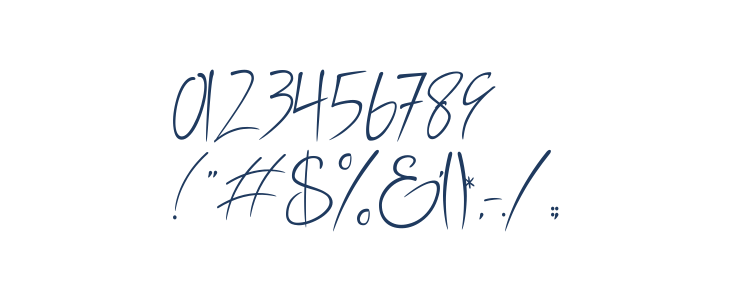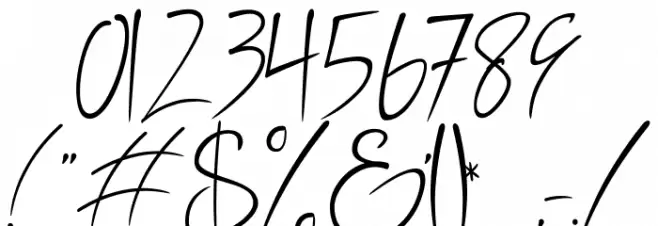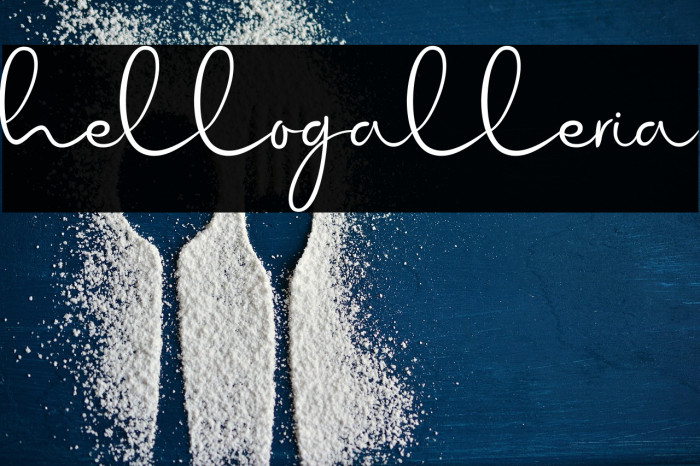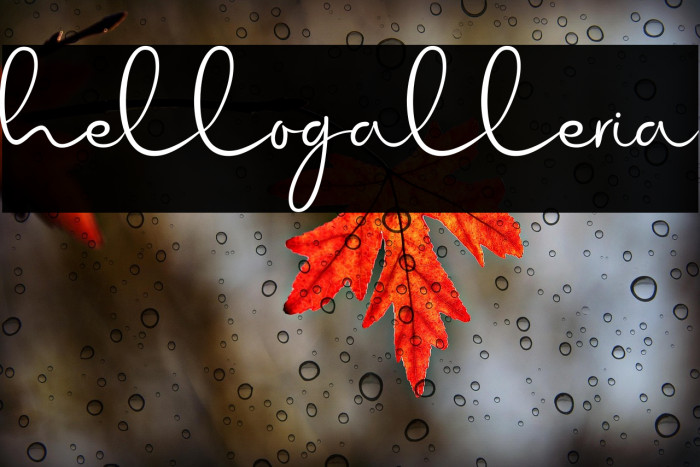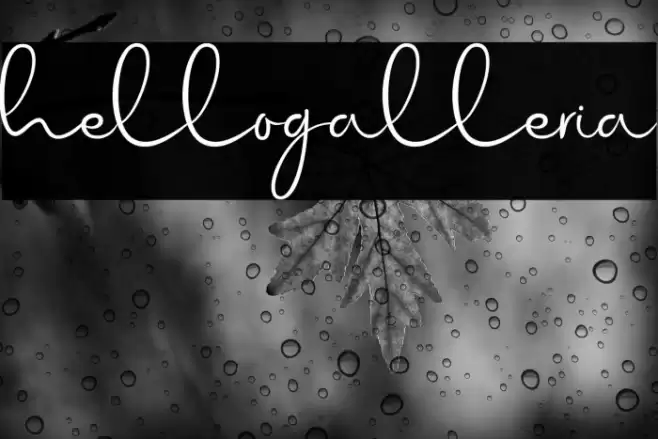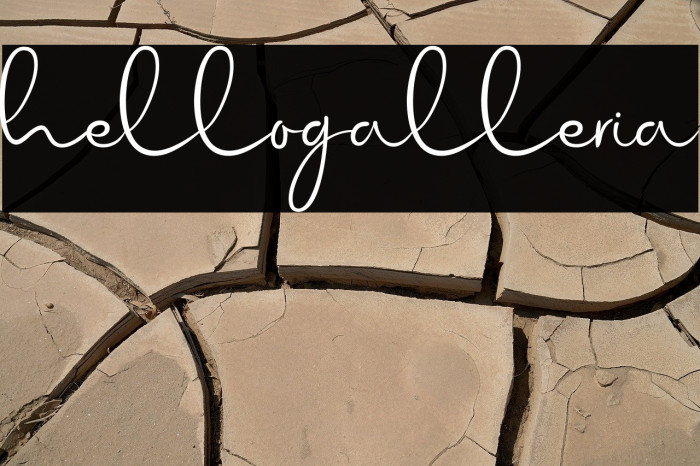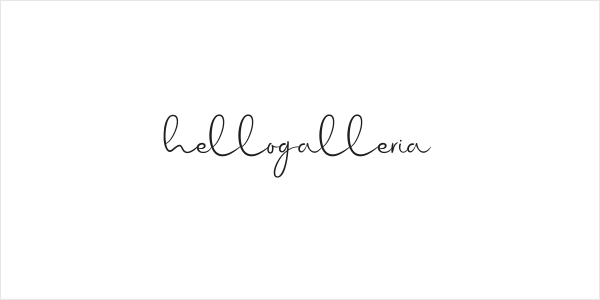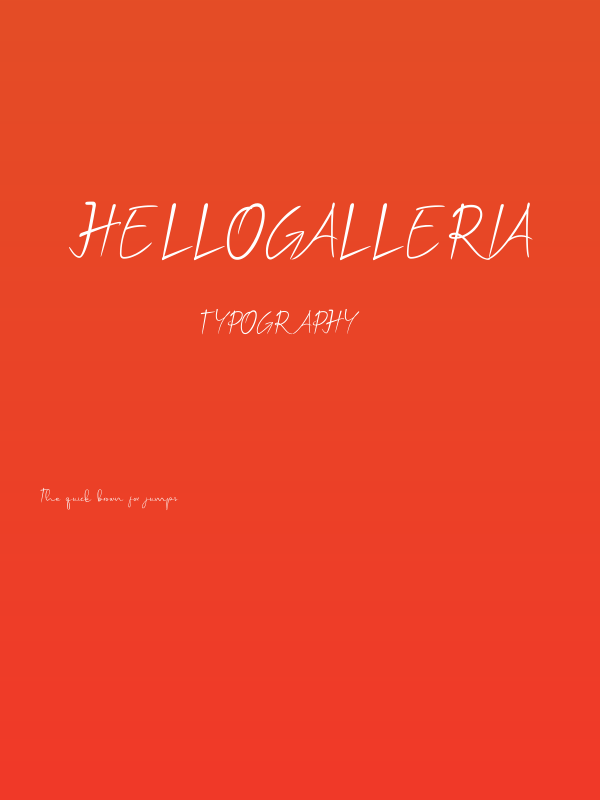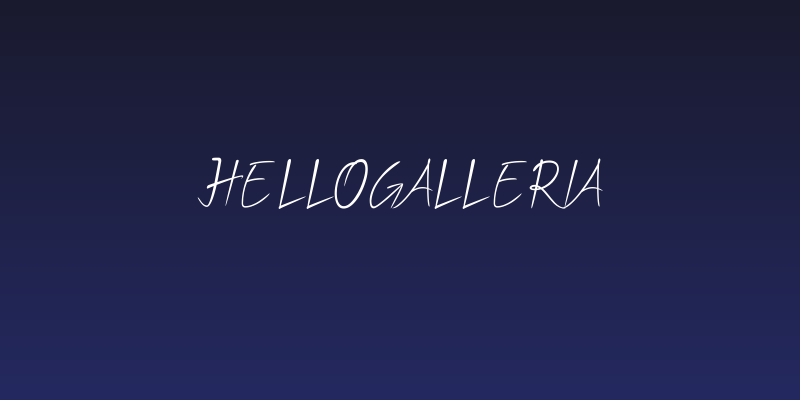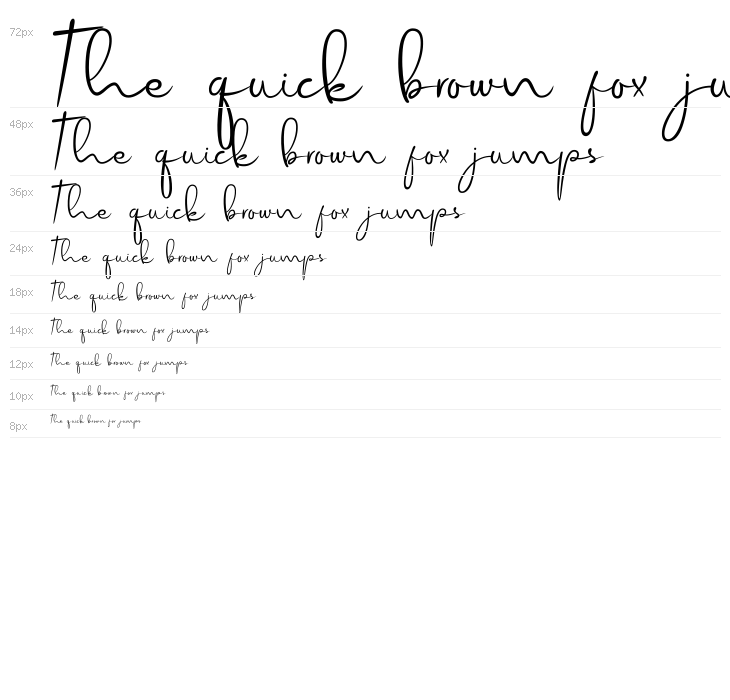
hellogalleria Font
hellogalleria Description
This font features a lively and expressive handwritten style, characterized by its fluid and dynamic strokes. The uppercase letters are tall and slightly slanted, giving a sense of movement and elegance. The lowercase letters maintain a consistent flow, with loops and curves that add a playful touch. Numbers are distinct and maintain the same energetic style, ensuring readability. Special characters are creatively integrated, enhancing the font's overall charm. This font is perfect for projects that require a personal and artistic touch, such as invitations, greeting cards, and creative branding.